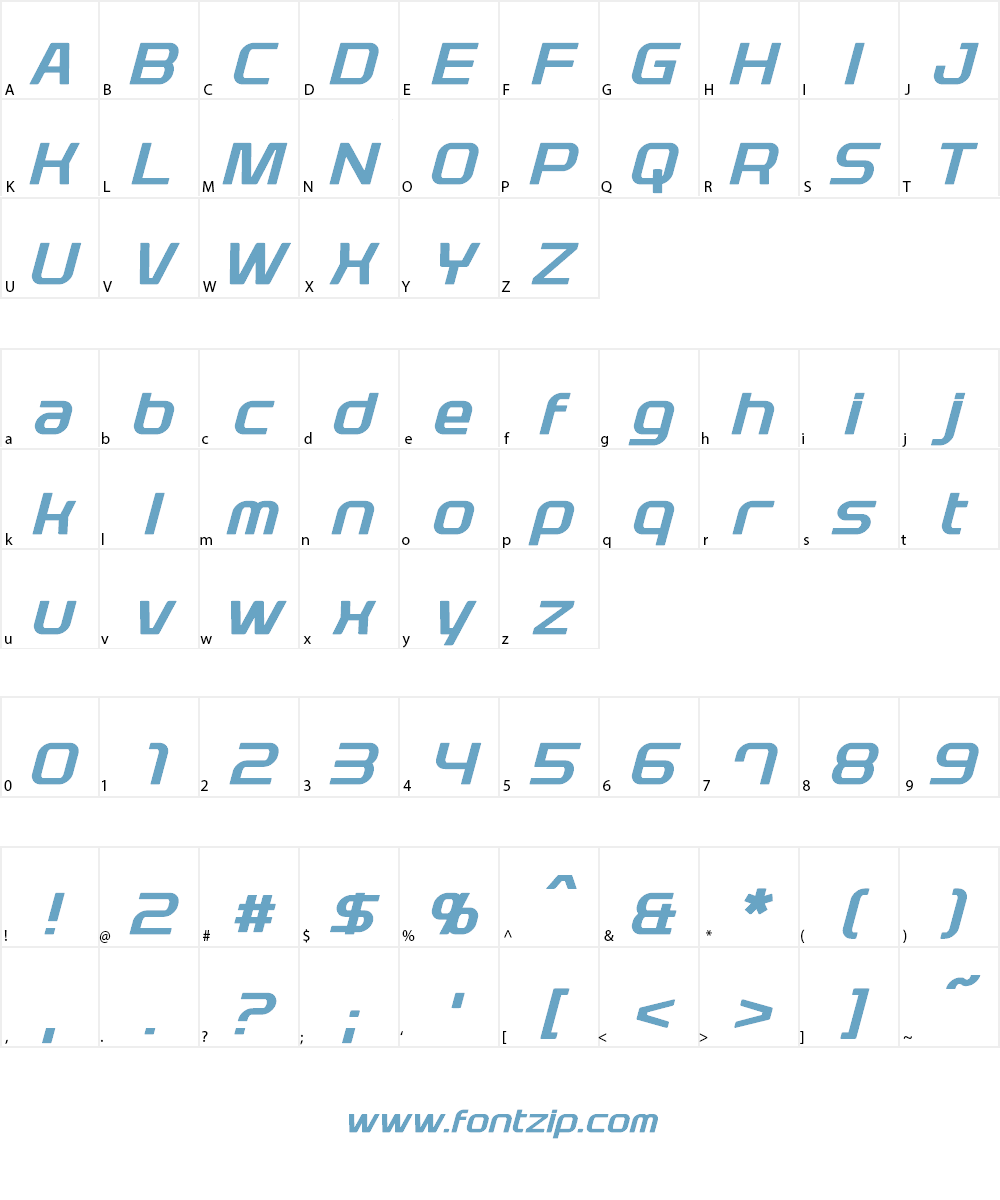
This LCD-style typeface is based on the computer and television lettering found in Bandai/Sunrise's "Gundam: Build Fighters" series. Includes full alphabet, extended punctuation, Euro. Includes Bold, Italic, and Condensed versions.